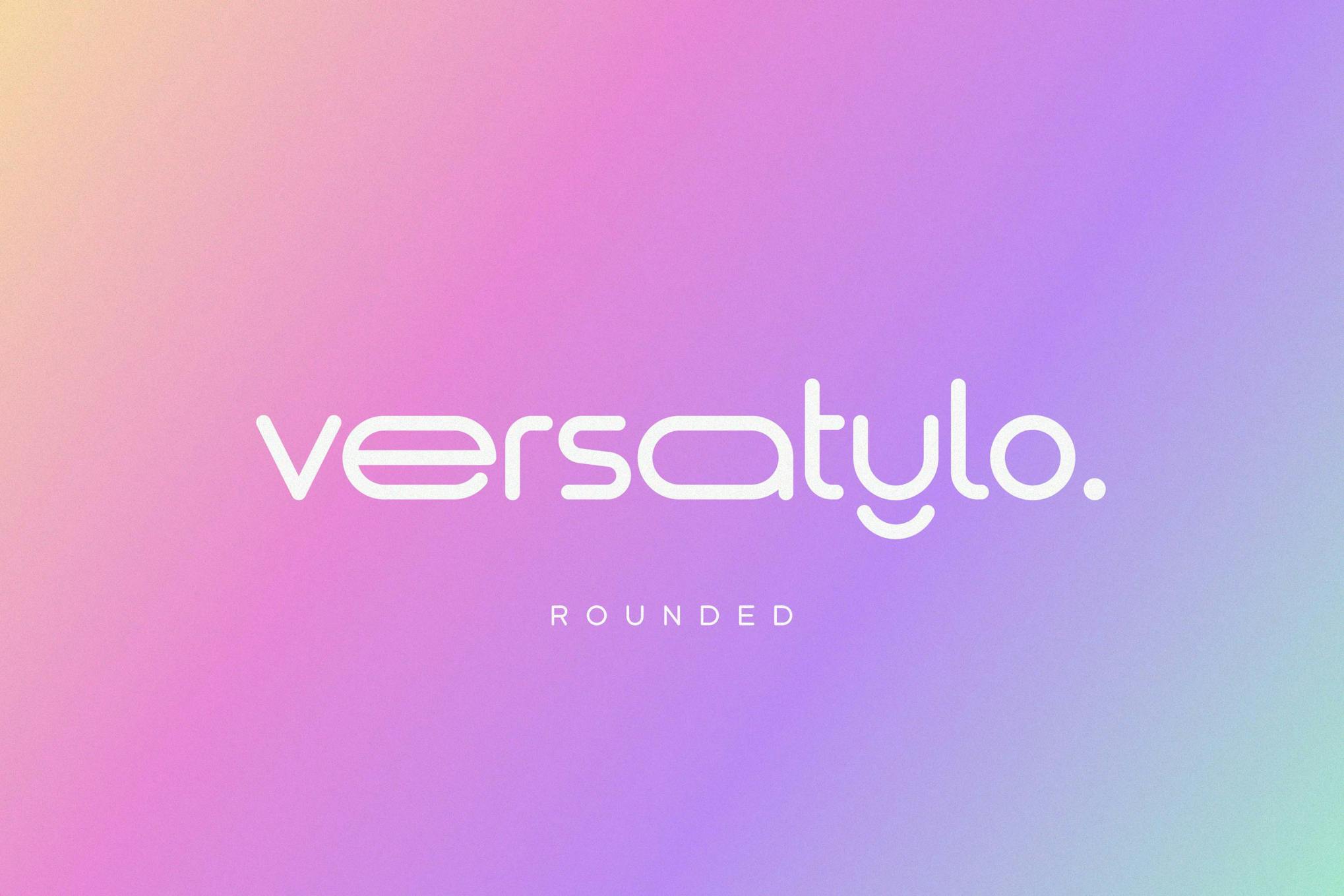
Versatylo Rounded - Logo Font
The Versatylo Rounded - Logo Font is perfect for friendly brand logos, tech startup identities, app interface design, children's product branding, modern service companies, approachable corporate logos, digital platform branding, creative agency identities, healthcare communications, and contemporary business signage.
What makes the Versatylo Rounded - Logo Font so exciting is its perfect combination of professional versatility with approachable rounded character that creates an ideal balance between business credibility and friendly accessibility. This exceptional typeface features soft rounded edges, optimized letter spacing, and contemporary geometric construction that establishes trustworthy communication perfect for modern brands seeking both professionalism and human connection. The font's versatile personality and rounded sophistication make it an outstanding choice for companies seeking to communicate reliability, innovation, and approachability with contemporary design excellence.
The Versatylo Rounded - Logo Font family includes comprehensive weight variations, featuring Light, Regular, Medium, Semi-Bold, Bold, and Black options, plus extended and condensed versions. Each weight maintains the signature rounded appeal while offering different levels of visual impact and spatial efficiency, providing designers with complete flexibility for creating distinctive logo systems and versatile brand hierarchies.
The sophisticated rounded engineering of Versatylo Rounded - Logo Font demonstrates expert logo typography craftsmanship, with each character optimized for perfect scalability, brand recognition, and visual harmony across all applications. The font's comprehensive character set includes international language support, logo-optimized spacing, professional symbols, and brand-friendly punctuation, ensuring complete functionality for global branding projects and international business operations.
Specifically engineered for logo and branding applications, this remarkable font maintains perfect clarity and brand consistency across all sizes, platforms, and media formats. From detailed mobile app icons to large-scale corporate signage, Versatylo Rounded - Logo Font performs exceptionally while preserving its distinctive rounded character and professional brand appeal.